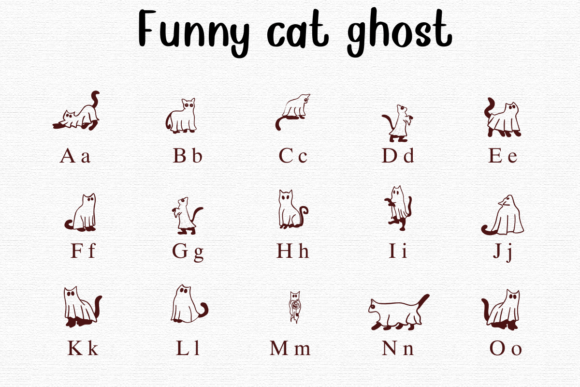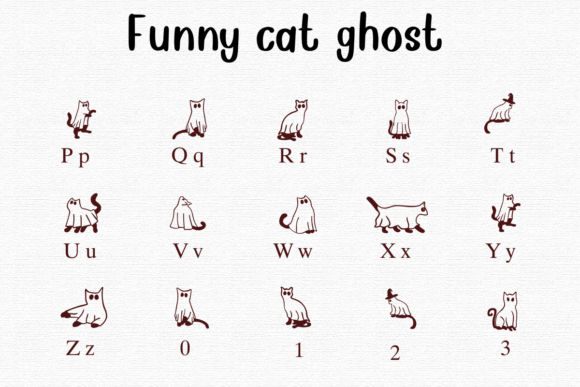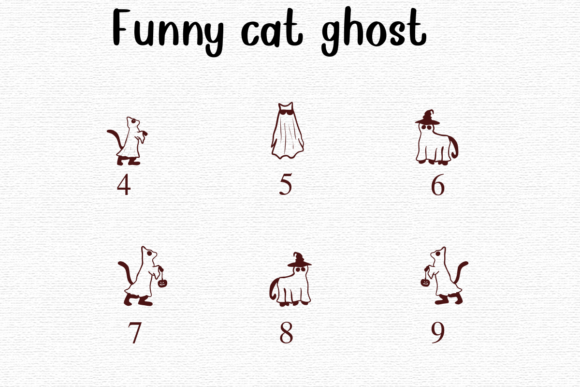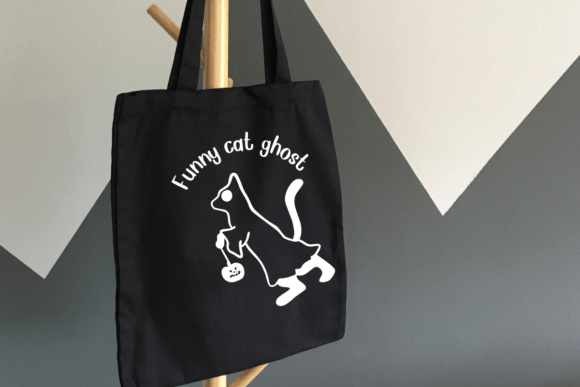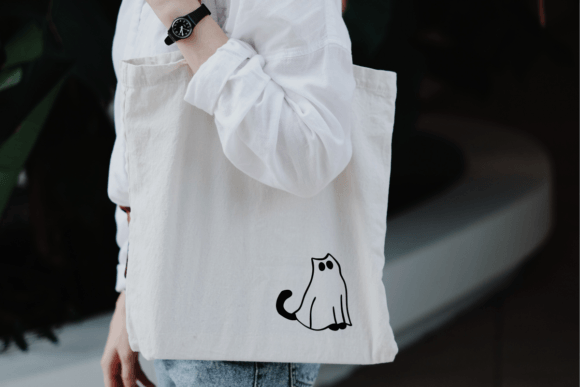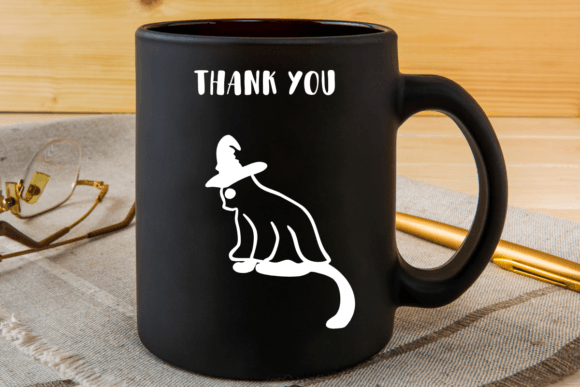
Introduction to Funny Cat Ghost Font
As a designer, have you ever found yourself staring at a blank screen, searching for the perfect font to bring your creative project to life? You know, that moment when everything feels just a little bit dull, and you wish you had a spark of inspiration to guide you. Well, we’ve got just the thing to make your design shine: the Funny Cat Ghost Font.
This adorable font is a game-changer for designers looking to add a touch of whimsy and fun to their projects. With its high-quality characters featuring cats dressed up as ghosts, it’s the perfect resource for anyone looking to create something truly unique and eye-catching. Whether you’re working on a spooky-themed design or just want to add a little bit of personality to your next project, the Funny Cat Ghost Font is sure to bring a smile to your face.
Key Features of Funny Cat Ghost Font
- Unique and whimsical design featuring a cat with a ghostly aura, perfect for creative projects.
- High-quality font with a transparent background, allowing for seamless integration into various design elements.
- Perfect for use in creative projects such as posters, invitations, and social media graphics, adding a touch of whimsy and fun.
- Unique font size and style options, allowing designers to customize the font to fit their specific design needs.
Honest Review: Funny Cat Ghost Font
I recently stumbled upon the Funny Cat Ghost Font while searching for design resources for a creative project. I was excited to see what this free download had to offer, and I must say, I was not disappointed. The font is perfect for adding a touch of whimsy to any design.
- ✨ The font has a transparent background, making it easy to place over any image or color.
- ✨ The design is high quality and has a fun, playful vibe.
- ✨ The font is versatile and can be used for a variety of creative projects, from social media graphics to print materials.
- ⚠️ The font may not be suitable for professional or formal projects, as it can come across as too playful.
Overall, I’m impressed with the Funny Cat Ghost Font. It’s a great design resource for anyone looking to add some personality to their creative project. With its high-quality design and transparent background, it’s a great choice for designers who want to add a touch of fun to their work.
Tips for Getting the Most Out of Funny Cat Ghost Font
To get the most out of the Funny Cat Ghost Font, experiment with different font sizes, colors, and layering techniques. You can also combine the font with other design elements, such as images or graphics, to create unique and eye-catching designs.
Common Use Cases for Funny Cat Ghost Font
The Funny Cat Ghost Font is perfect for a variety of creative projects, including social media graphics, invitations, presentations, and documents. Its high-quality design and transparent background make it easy to use in a variety of design applications, from Canva to Adobe Photoshop/Illustrator to PowerPoint/Word.
Q: Is the Funny Cat Ghost Font suitable for digital and print projects?
Yes, the Funny Cat Ghost Font is designed to be versatile and suitable for both digital and print projects. Its high-quality design ensures that it will look great in various mediums, from social media graphics to print materials like business cards and brochures.